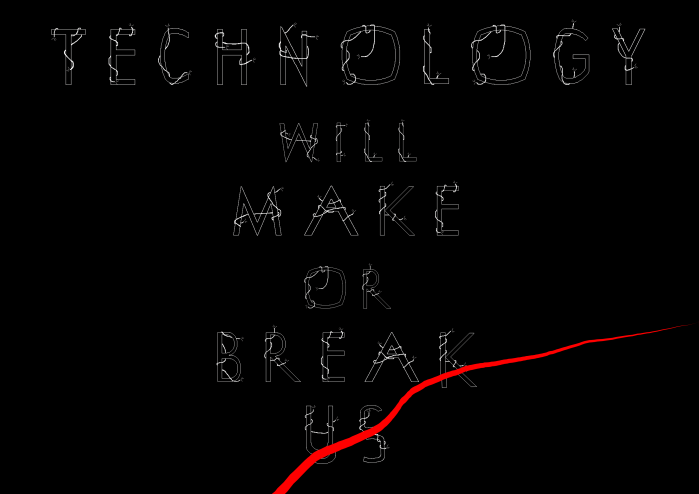
• I constructed this font with the idea of wires 'trapping' the letters. I wanted the font to be sans-serif, looking like Futura/Gill Sans. My theme was 'energetic' and at first I was looking more into food specifically and how we gain energy but then I took a different approach trying out different ways that I can portray electricity. Finally, I experimented with cutting out letters from pizza cardboard boxes and putting wires around them to try and make the digital fontstruct version look more realistic and accurate.
"Technology will make or break us"
-Jenny Holzer
Wired Prisonby Bringaltern